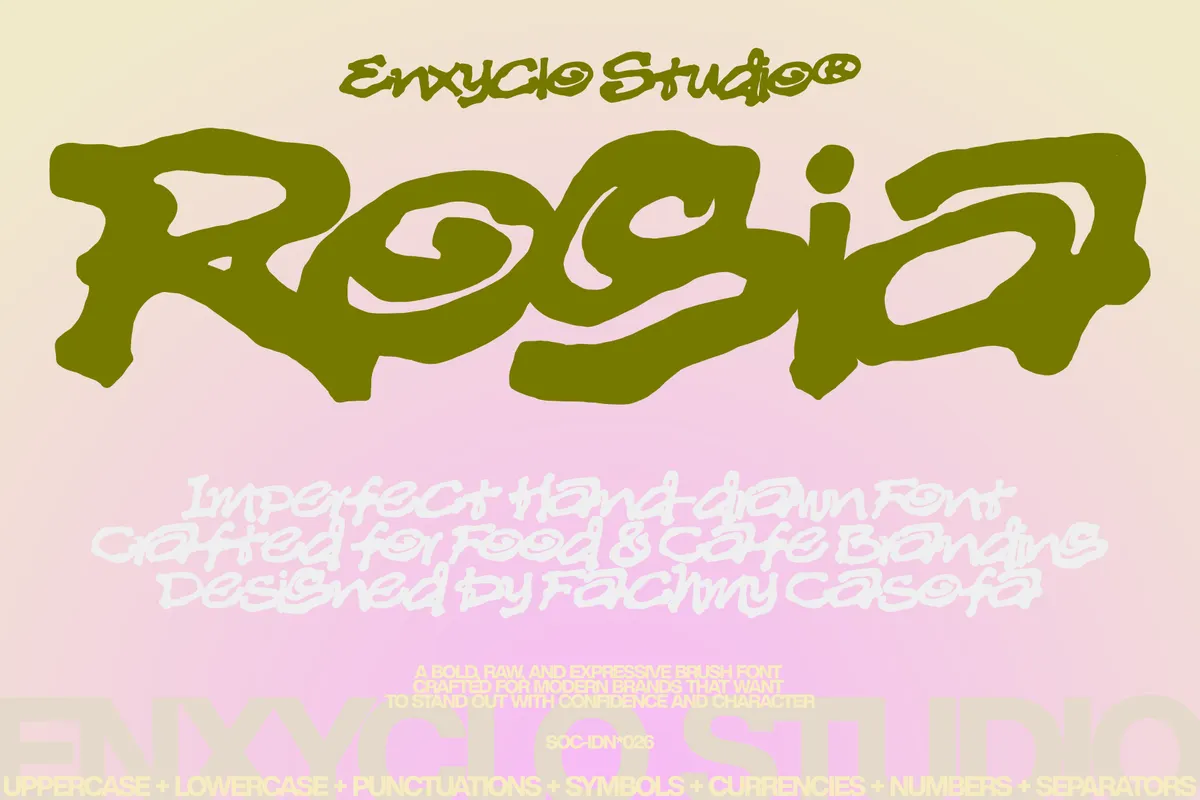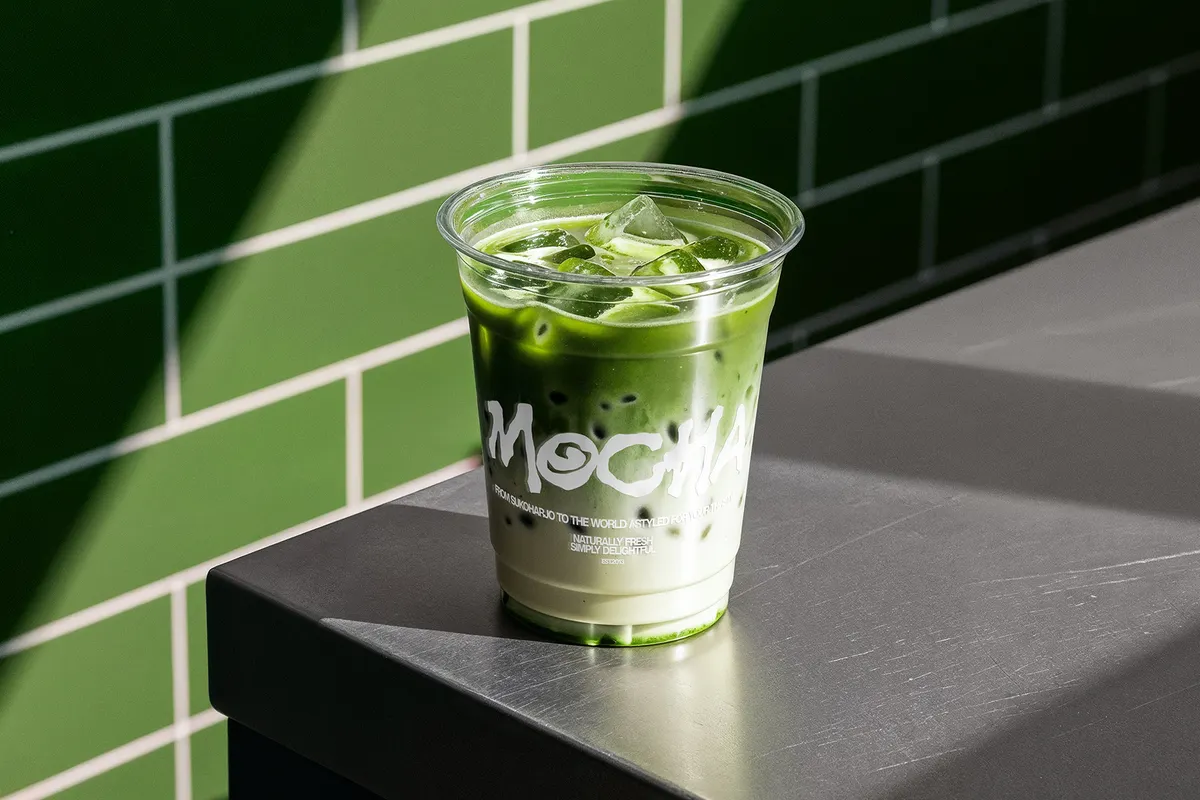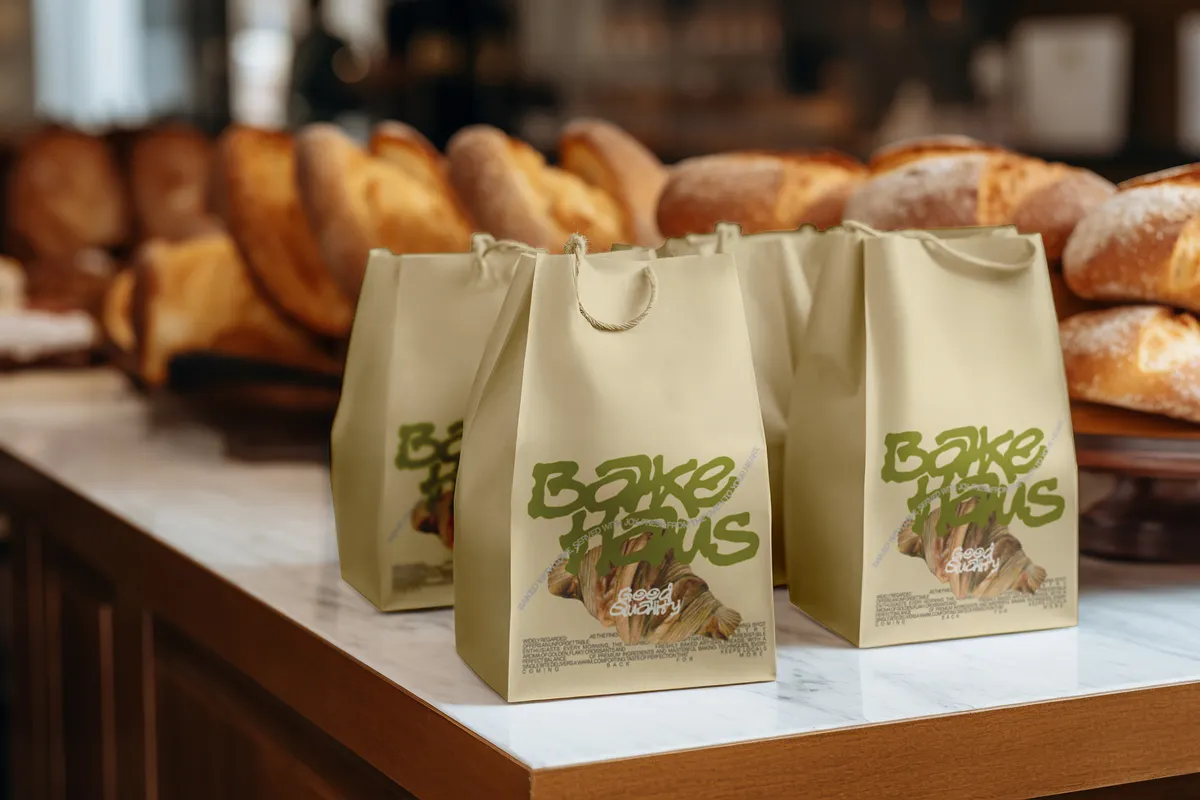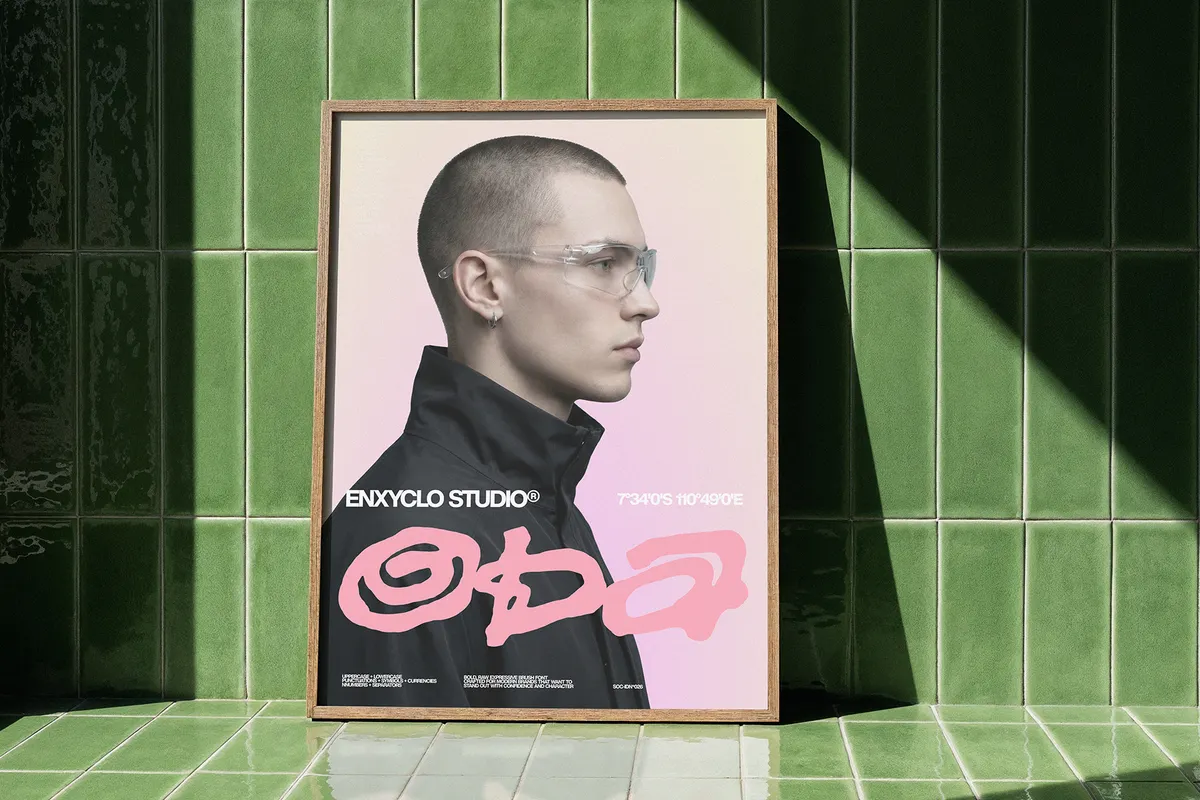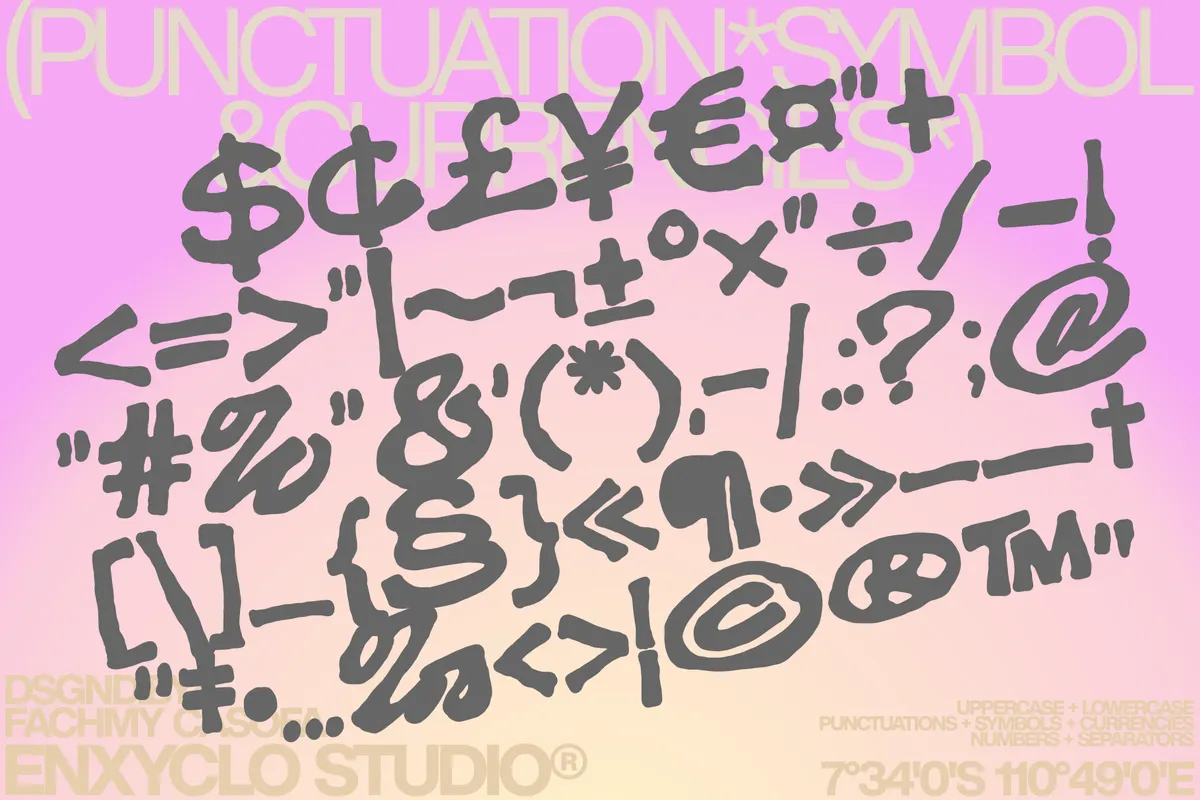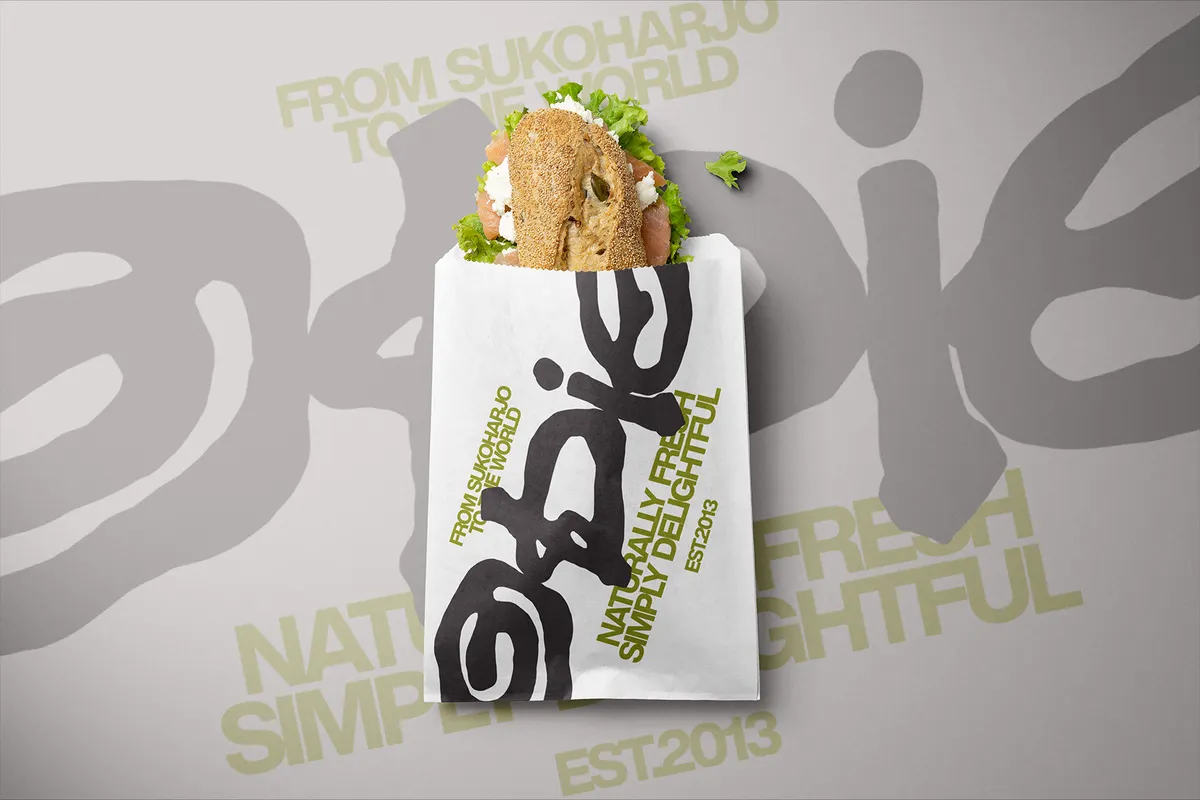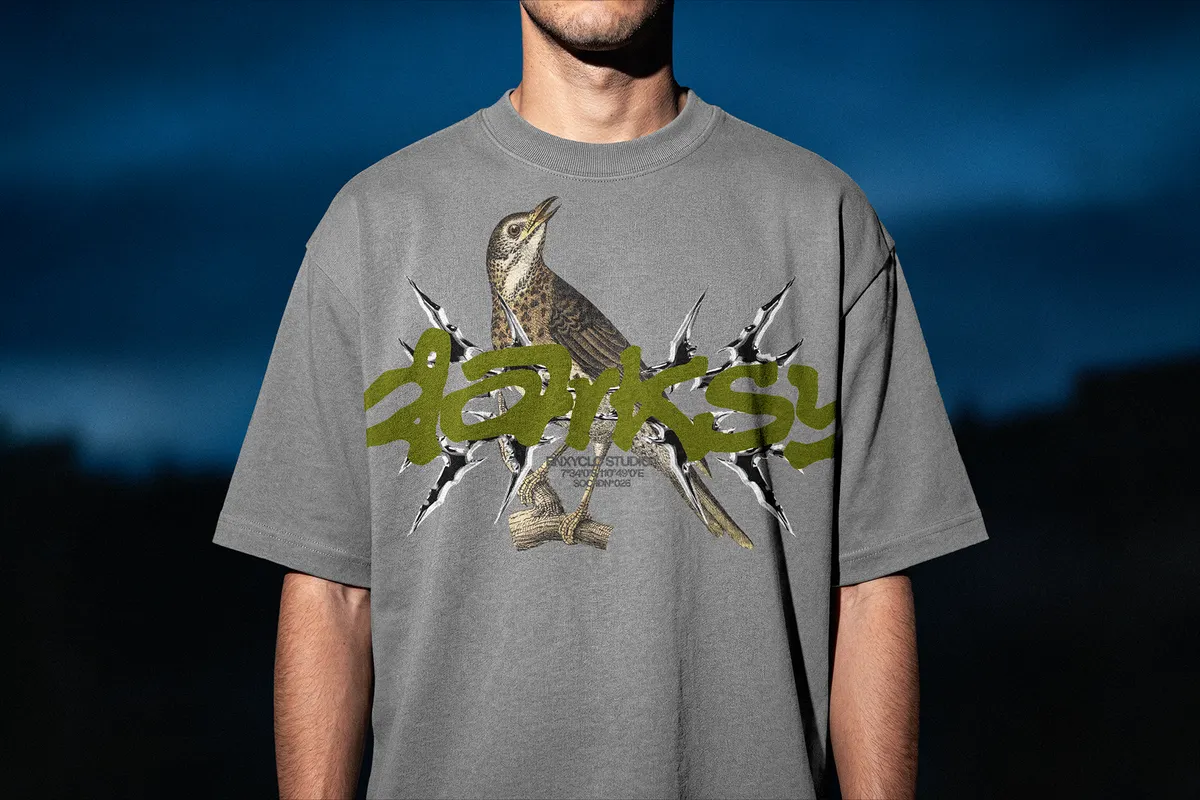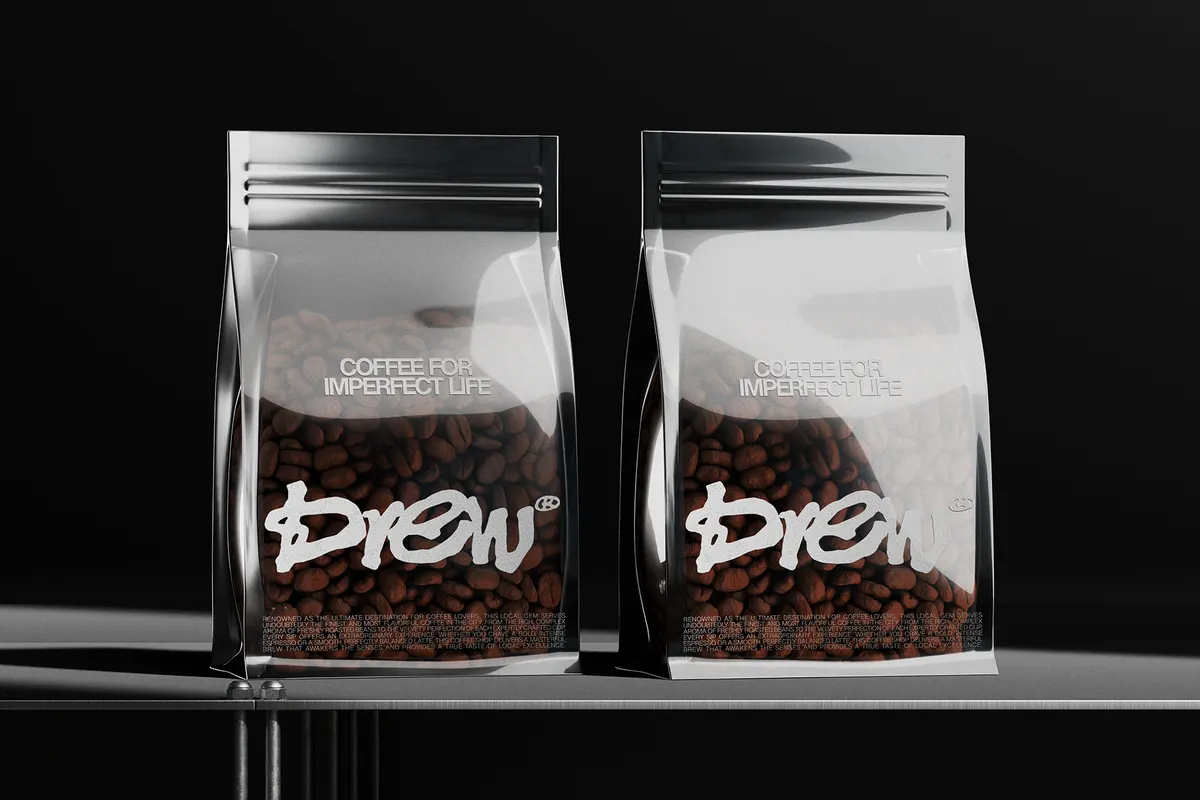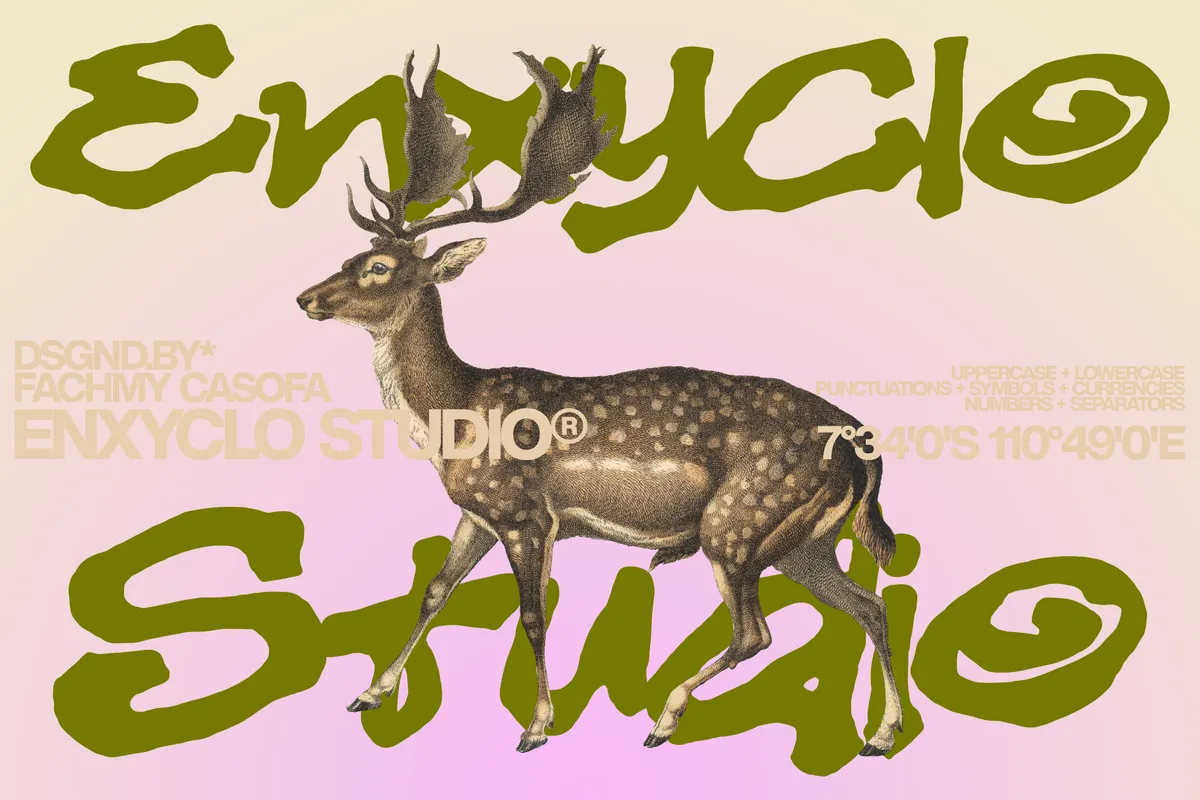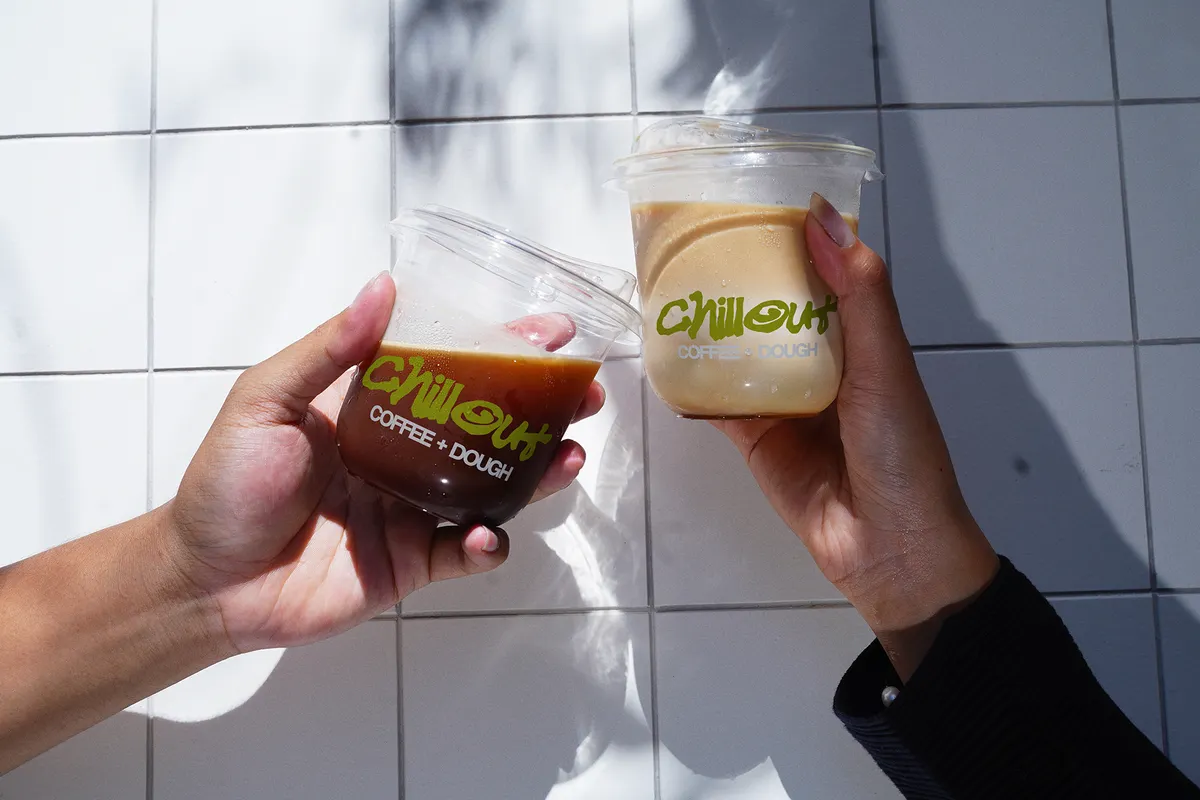
Rogia - Hand Drawn Brush Food Font
Rogia
Rogia draws rough, imperfect brush letterforms with an energetic, hand-scrawled edge, closer to chalk signage in a busy kitchen than a polished display face. Uppercase and lowercase read as two distinct alphabets, and currency symbols, punctuation, and separators round out a full working character set.
The mockups show it stamped on coffee bags, iced drink cups, bakery totes, and streetwear graphics, so the same rough brush mark holds up across packaging, cups, and apparel. Use it for bakery and coffee branding, food packaging, restaurant logos, menus, posters, and street food campaigns.
- Uppercase & lowercase;
- Numerals, punctuation & symbols;
- Currency symbols and separators;
- Extended Latin character set